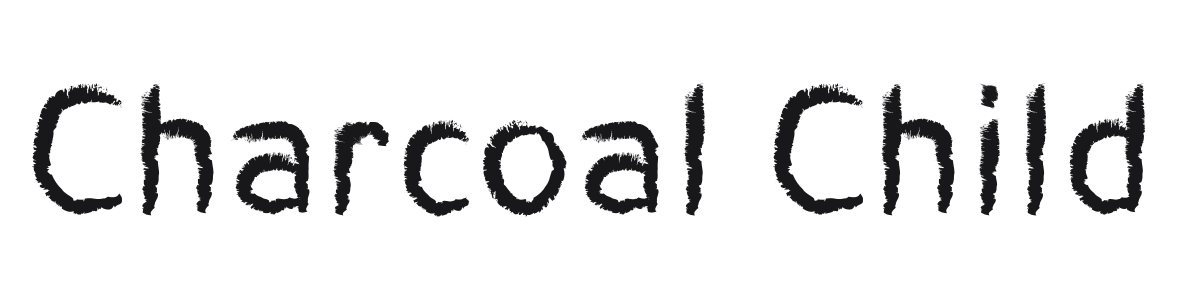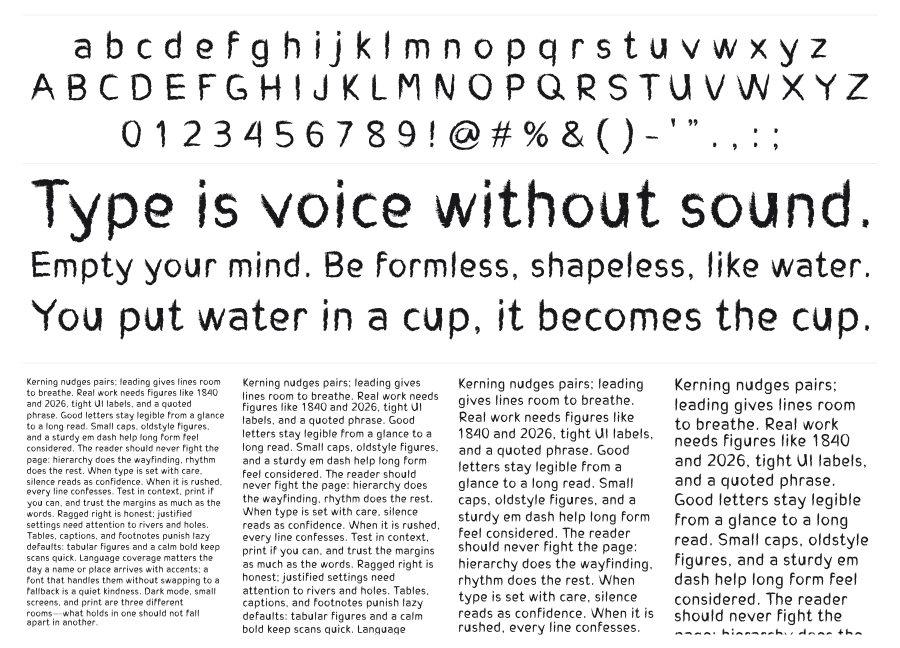
Charcoal Child
by Mfth Std.
Charcoal Child is a hand-lettered sans-serif that looks like it was written with a piece of charcoal by an unhurried child. The roughed-up strokes and slightly wobbly baseline give it a genuine handmade texture that's hard to fake. Works best large, where the grain and irregularity read as character rather than noise.